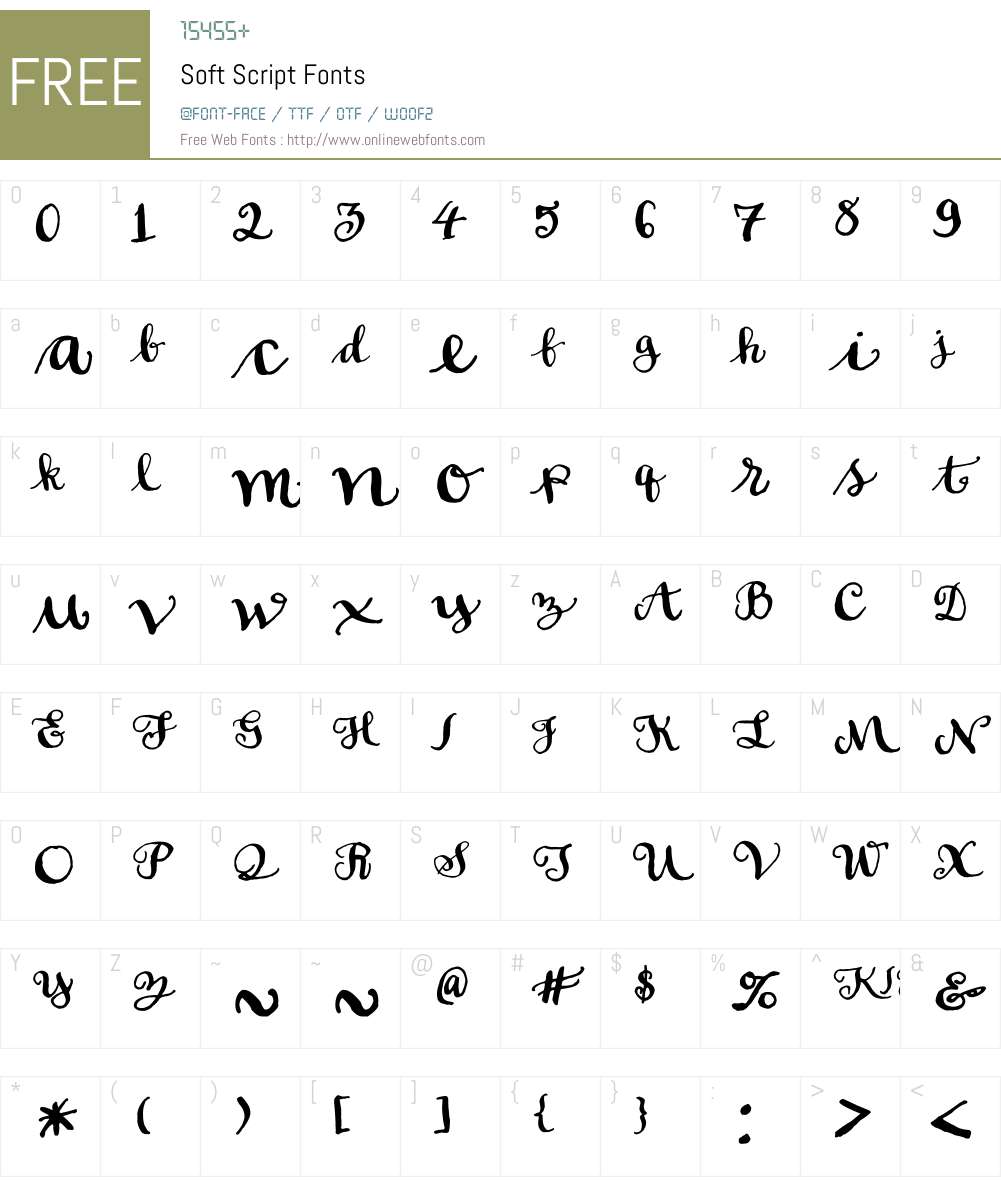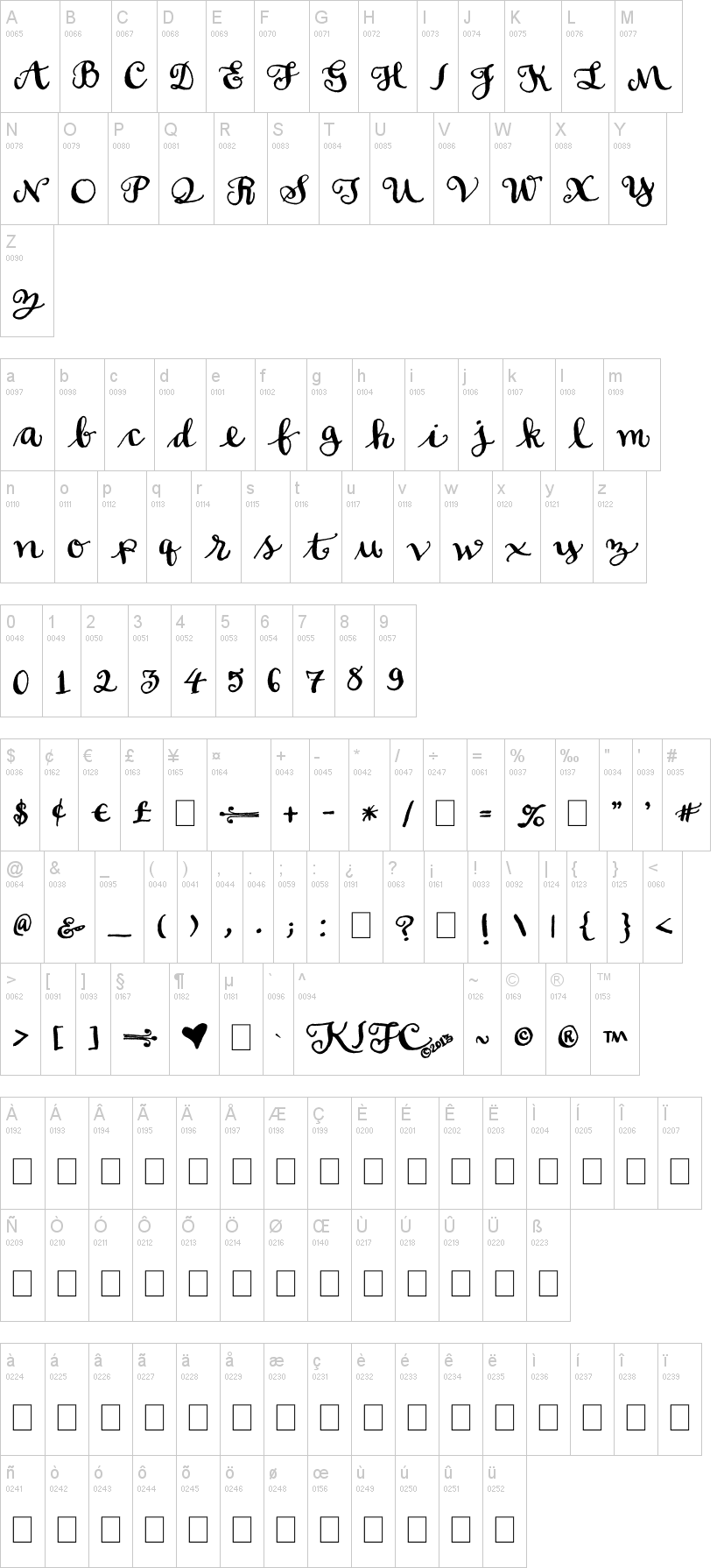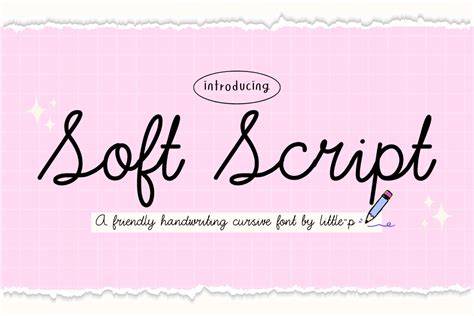
The Best Soft Script Fonts For 2023
What is a Soft Script Font?
Soft script fonts are a type of font that brings a sense of sophistication and elegance to any design. This is due to their smooth and flowing curves, which lend a more natural and hand-drawn look to your project. Soft script fonts are perfect for logos, invitations, branding, and other kinds of design work. They are also popular in web design, as they provide an inviting and inviting look to a website.
Soft script fonts are an ideal choice for those who want to create something that looks fresh and modern, without sacrificing the warmth and friendliness of a hand-drawn font. Soft script fonts are perfect for creating a warm and inviting atmosphere, while also maintaining a modern and stylish look. They are also a great choice for those who want to make a statement with their design.
The Best Soft Script Fonts for 2023
When it comes to choosing a soft script font for your design project, there are a few key features to look out for. First, you should look for a font that has a smooth, fluid, and consistent lettering style. Another important factor is readability - make sure that your font is easy to read, even at small sizes. Finally, look for a font that is versatile enough to fit any design style.
To help you find the perfect soft script font for your design project, we’ve rounded up the best soft script fonts for 2023. Whether you’re looking for a classic script font or a more modern take on a traditional style, we’ve got you covered.
1. Raleway
Raleway is a classic script font with a modern twist. The font features smooth and stylish curves that lend a timeless elegance to any design. It’s also highly legible and versatile, making it perfect for logos, branding, invitations, and other design projects.
2. Montserrat
Montserrat is a modern, stylish font with a classic script style. The font is simple and minimal, with a smooth and consistent lettering style that makes it perfect for all kinds of design projects. Montserrat is also highly legible and versatile, making it a great choice for logos, branding, and other design projects.
3. Pacifico
Pacifico is a fun and playful font with a classic script style. The font is bold and vibrant, with smooth curves and a consistent lettering style that makes it perfect for logos, branding, invitations, and other design projects. Pacifico is also highly legible and versatile, making it a great choice for all kinds of design projects.
4. Roboto Slab
Roboto Slab is a modern, stylish font with a classic script style. The font is simple and minimal, with a smooth and consistent lettering style that makes it perfect for all kinds of design projects. Roboto Slab is also highly legible and versatile, making it a great choice for logos, branding, and other design projects.
5. Merriweather
Merriweather is a classic script font with a modern twist. The font features smooth and stylish curves that lend a timeless elegance to any design. It’s also highly legible and versatile, making it perfect for logos, branding, invitations, and other design projects.
Soft script fonts are an ideal choice for those who want to create something that looks fresh and modern, without sacrificing the warmth and friendliness of a hand-drawn font. Whether you’re looking for a classic script font or a more modern take on a traditional style, the best soft script fonts for 2023 have something for everyone. From Raleway to Roboto Slab, there’s a font for every design project.